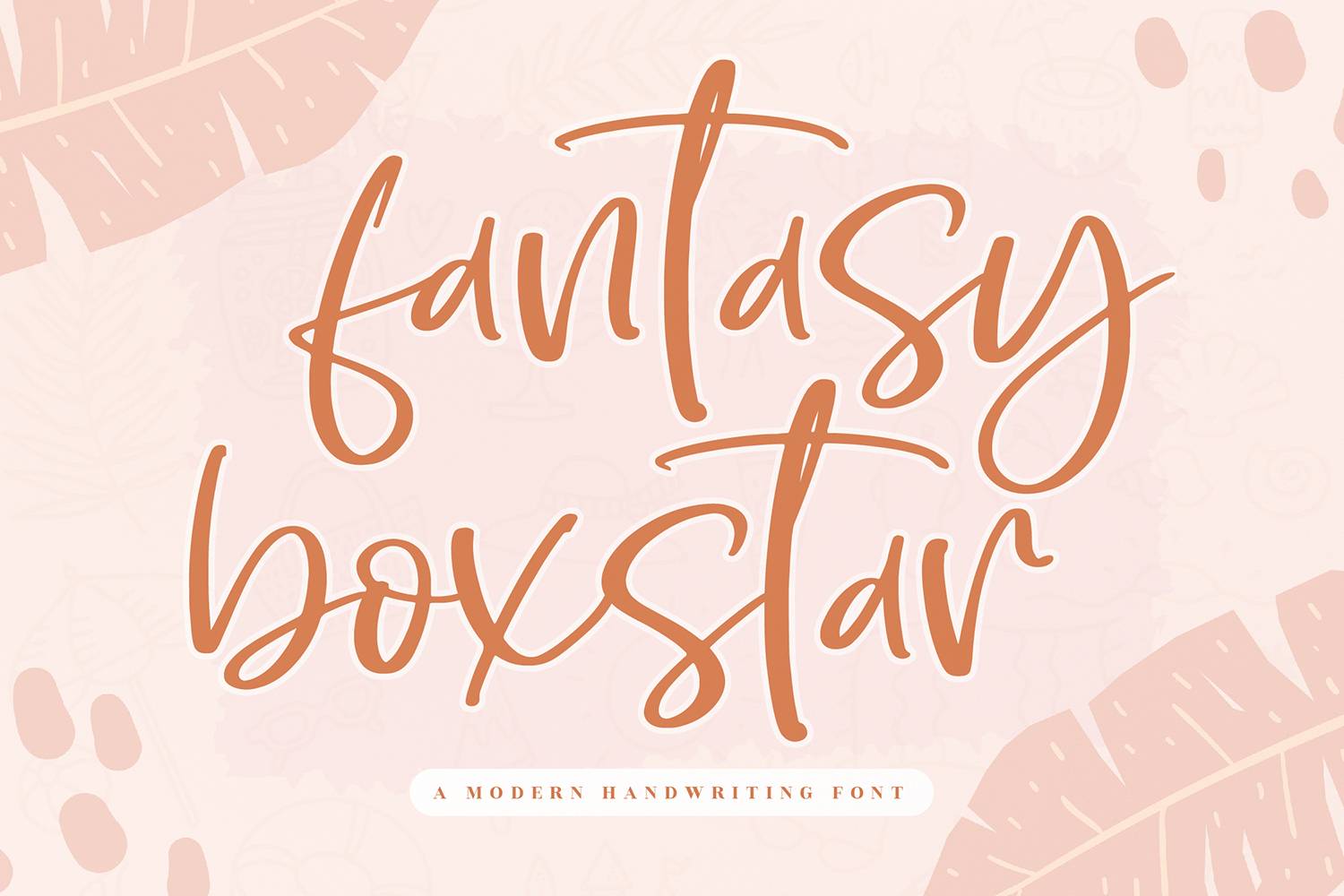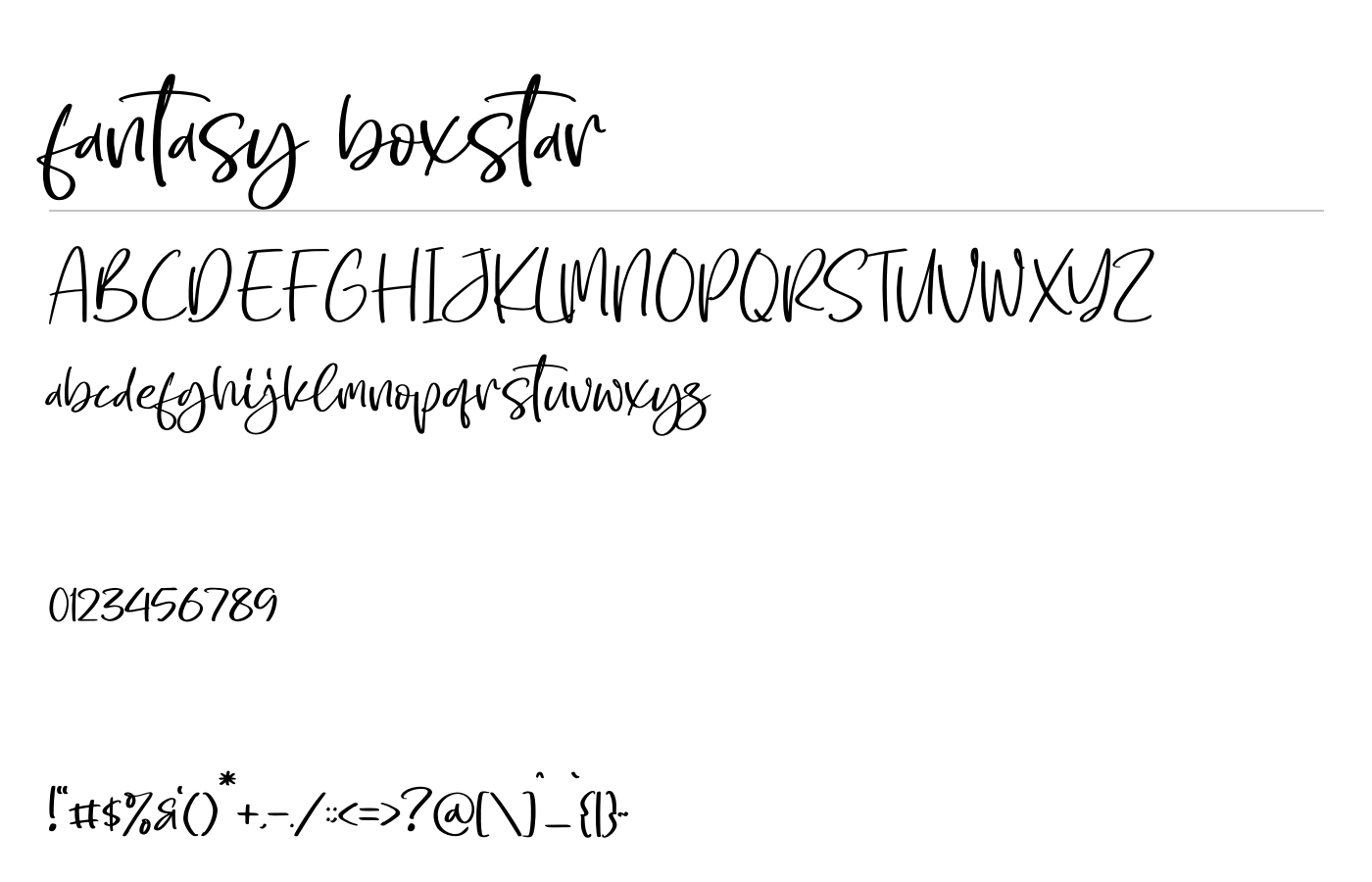
Fantasy Boxstar is a casual, handwritten script font with a light, airy feel and playful personality. Its tall, narrow letterforms and smooth, flowing strokes give it a friendly and approachable style that works well for informal branding, invitations, and creative projects seeking a personal touch. This font shines in designs where a lively, artistic vibe is desired, making it ideal for logos, social media, and headline use.
Fantasy Boxstar Font
About Fantasy Boxstar Font